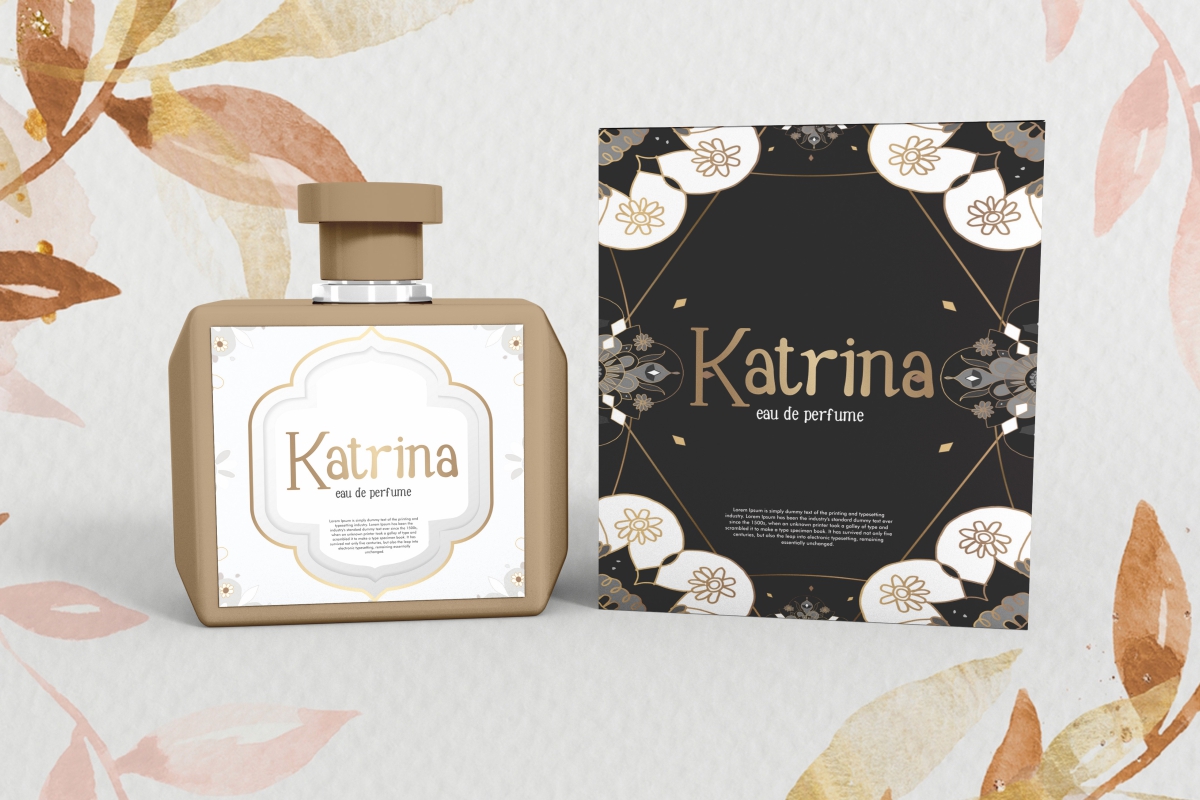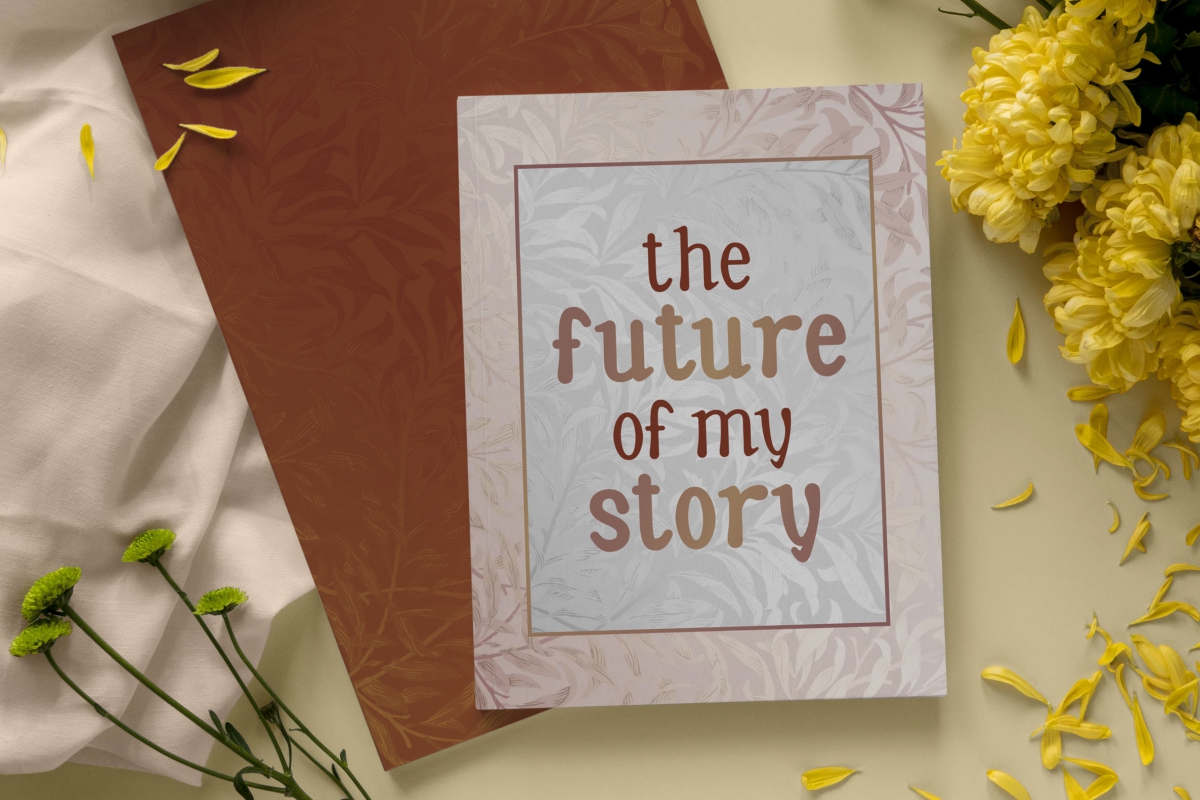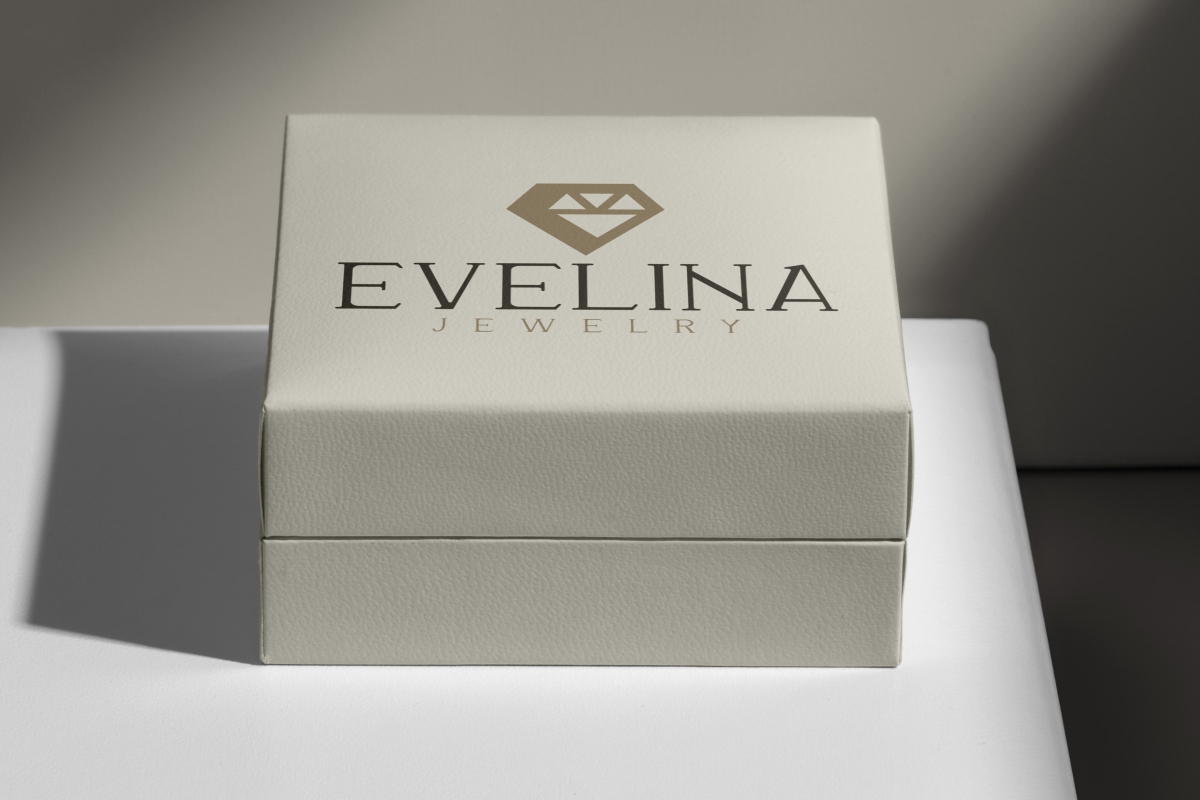
Strong Message Font
Strong Message Display Font
This is a fun sans serif display font family with three style options : Regular, Italic, and Bold. Get it now!. The font has a unique shapes that makes it unique and stand out. It will be suitable for many industries, such as comic, schools, café, craft, fashion, interior design, jewelry, perfume, publishing, writer, and anything that requires a strong classy vibe.